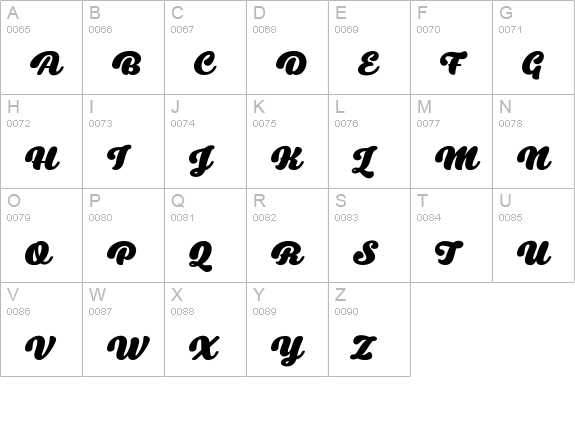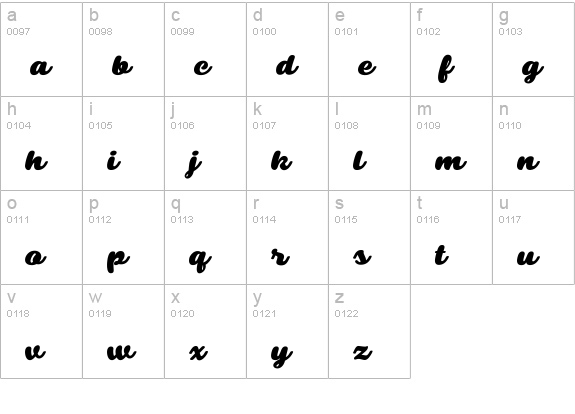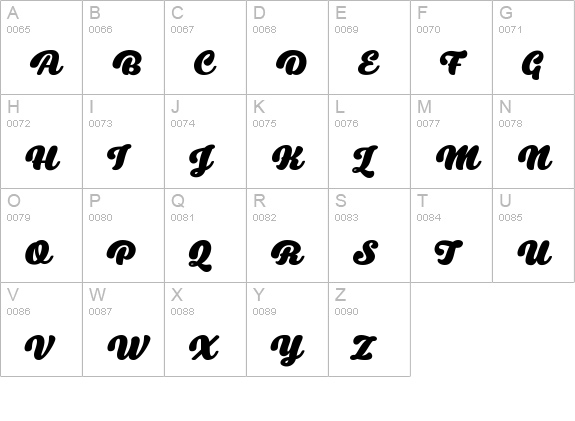
Introducing Swiftel Base DEMO DEMO, a stunning font that combines elegance with modernity. This exquisite typeface is perfect for adding a touch of sophistication to any design project. With its sleek lines and captivating curves, Swiftel Base DEMO DEMO effortlessly captures attention and leaves a lasting impression. What makes Swiftel Base DEMO DEMO even more enticing is that it is free! Yes, you read that right. This remarkable font is freely available to download at FontsMarket.com, making it accessible to designers, creatives, and enthusiasts alike. Whether you're working on a personal project or a professional endeavor, this font will elevate your work to new heights. The versatility of Swiftel Base DEMO DEMO is unparalleled. Its clean and legible characters make it suitable for a wide range of applications, from branding and packaging to headlines and invitations. No matter how you choose to use it, this font will bring a touch of elegance and sophistication to your designs. With Swiftel Base DEMO DEMO, you can effortlessly create eye-catching visuals that command attention. Its unique and distinctive style sets it apart from other fonts, making it a standout choice for any design project. Whether you're designing a logo, crafting a poster, or creating a website, this font will add a touch of professionalism and creativity. Don't miss out on the opportunity to enhance your designs with Swiftel Base DEMO DEMO. Download it for free at FontsMarket.com and experience the beauty and versatility of this remarkable font. Elevate your designs, captivate your audience, and make a lasting impression with Swiftel Base DEMO DEMO.